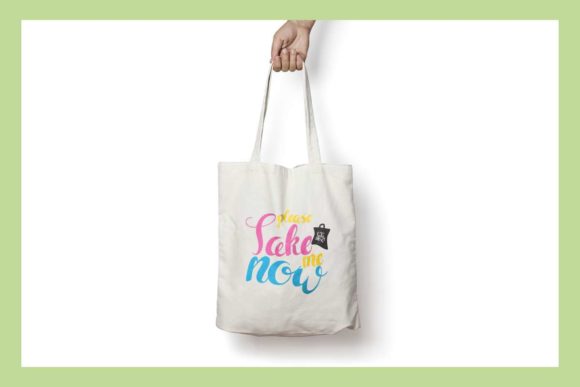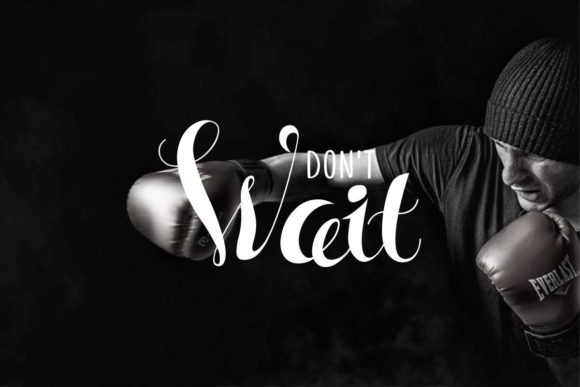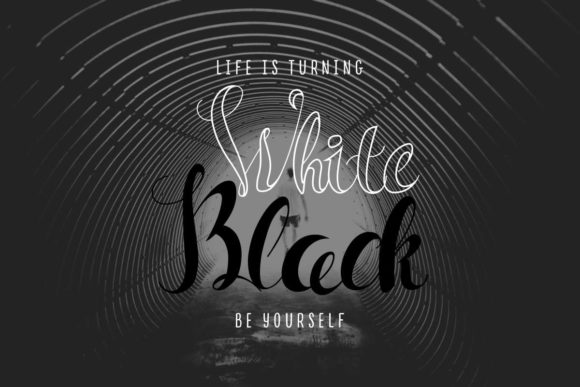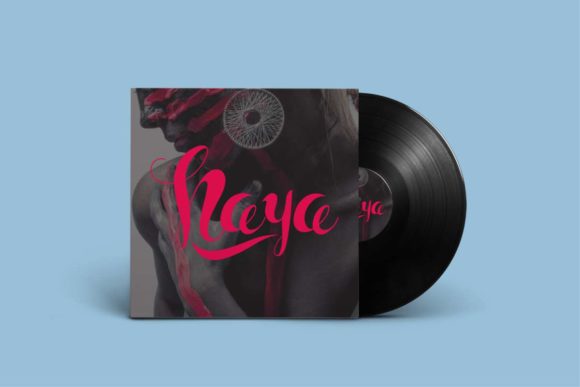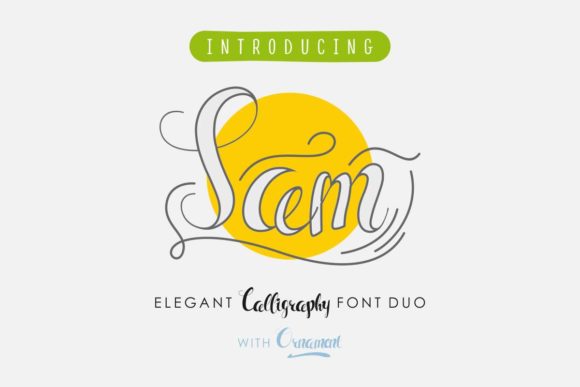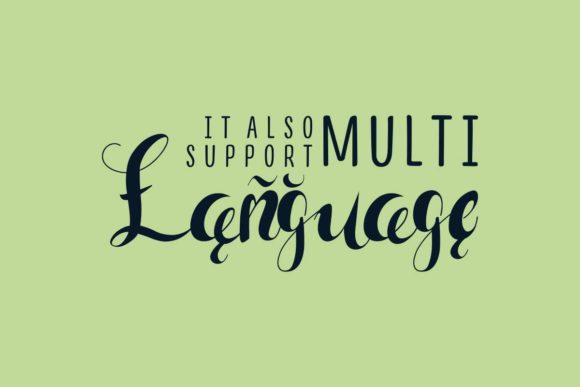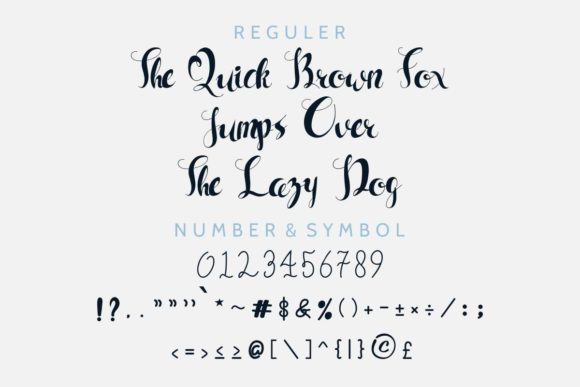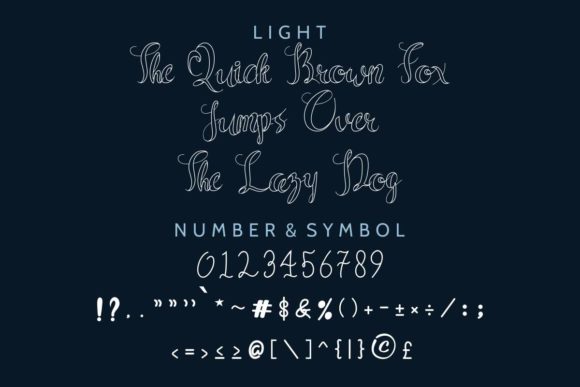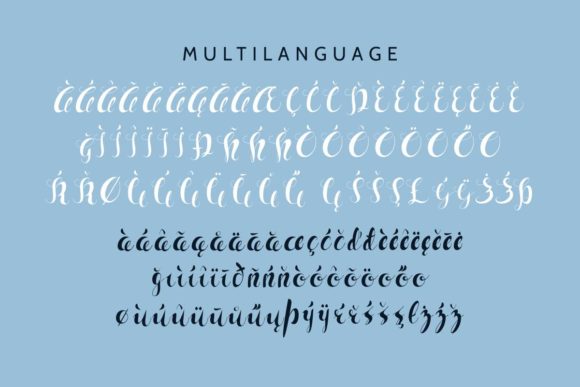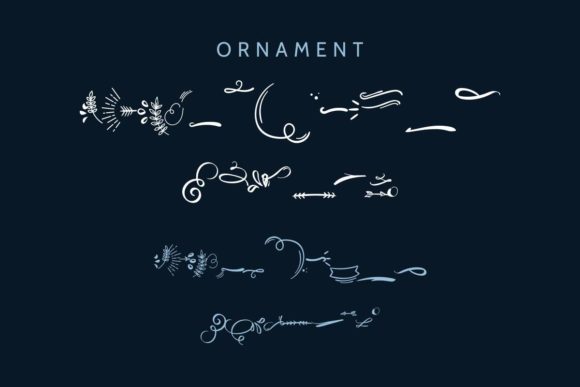
Sam Font
About Sam Font
Sam is not just another hand lettering brush font. This is an equally familiar and unusual calligraphy font, made by hand! It’s great for music label covers, branding, food packaging or stationery.